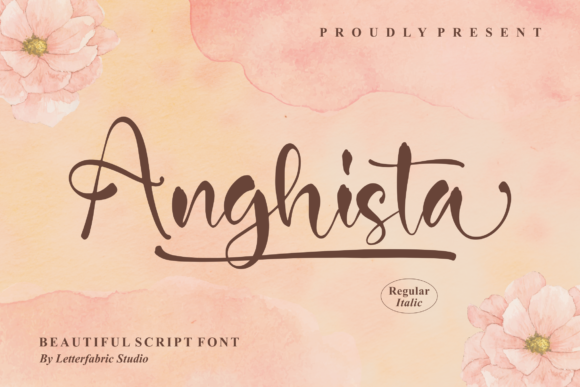
The Perfect Script: Unleashing the Beauty of Anghista Font
Have you ever been browsing through a vintage bookstore, and suddenly, you stumble upon an old, worn-out journal with a beautiful, handwritten script on its cover? That’s the kind of creative moment that sparks our imagination, and for designers, it’s a moment of inspiration. As we delve into the world of typography, we’re constantly on the lookout for fonts that evoke a sense of elegance and sophistication. This is where the Anghista Font comes in – a stunning script font that’s perfect for any project that requires a touch of whimsy and charm.
Designed with versatility in mind, the Anghista Font is an excellent choice for designers who want to add a personal touch to their work. From logos and branding projects to homeware designs and product packaging, this font is a valuable addition to any designer’s toolkit. Its unique script style makes it an excellent choice for creating eye-catching designs that stand out from the crowd.
Anghista Font Key Features
- Font Style: Script Font, with a unique blend of elegant and modern design.
- Unique Characteristics: Distinctive swashes, flourishes, and ligatures add a touch of sophistication and elegance to any text.
Review of Anghista Font
Overall, I’m quite impressed with Anghista Font. It’s a beautiful, elegant script font that’s perfect for adding a touch of sophistication to your designs. ✨
One of the things I like most about Anghista Font is its versatility. It works well for both personal and commercial projects, and its elegant lines make it a great choice for invitations, weddings, and other special occasions. ✨
Here are some of the key features that I think make Anghista Font stand out:
- Unique Style: Anghista Font has a unique, hand-written style that sets it apart from other script fonts.
- High-Quality Design: The font is well-designed and has a high level of detail, making it perfect for close-up views.
- Large Character Set: Anghista Font comes with a large character set, including uppercase and lowercase letters, numbers, and punctuation.
However, I do have a few criticisms:
⚠️ Some users may find the font a bit too ornate or over-the-top for certain designs.
Overall, I think Anghista Font is a great choice for designers who want to add a touch of elegance and sophistication to their projects. Just be aware of the limitations and price point before making a decision.
Anghista Font is ideal for creative and artistic designs, such as:
- Food and drink branding
- Artistic posters and prints
To get the most out of Anghista Font, experiment with different font sizes, colors, and styles to create unique and eye-catching designs.
The Anghista Font includes comprehensive language support for Latin-based languages, including English, Spanish, French, German, Italian, and many others. The font also includes a wide range of characters, including punctuation, numbers, and symbols.